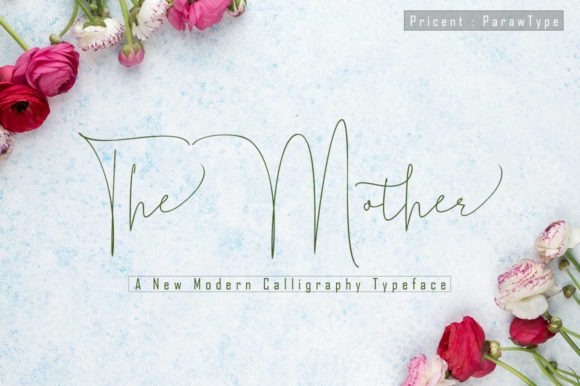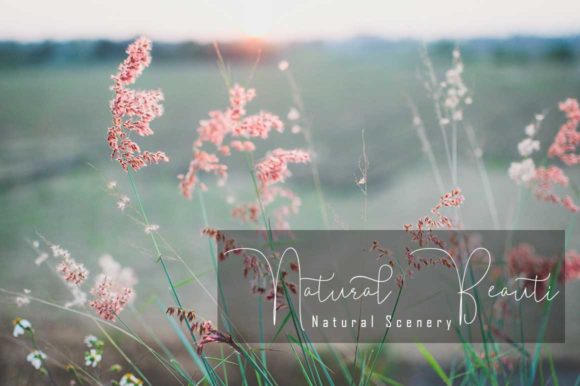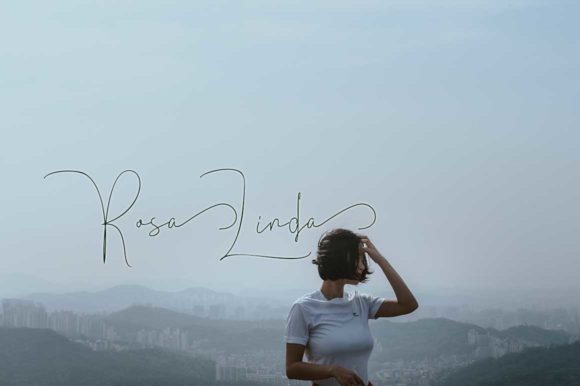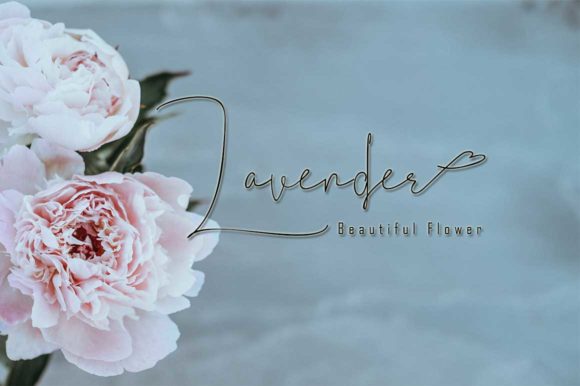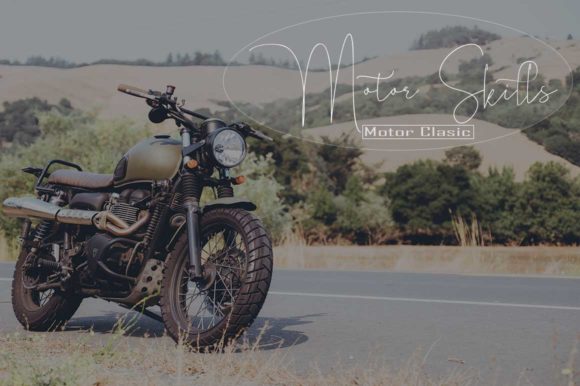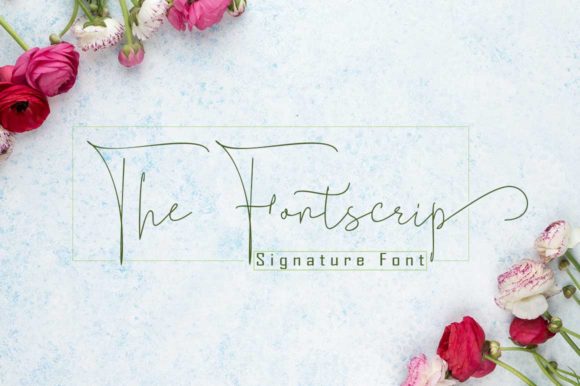
The Mother Font
About The Mother Font
The Mother is a classic and timeless handwritten font with a sophisticated feel. It will add a level of elegance to any creative project!